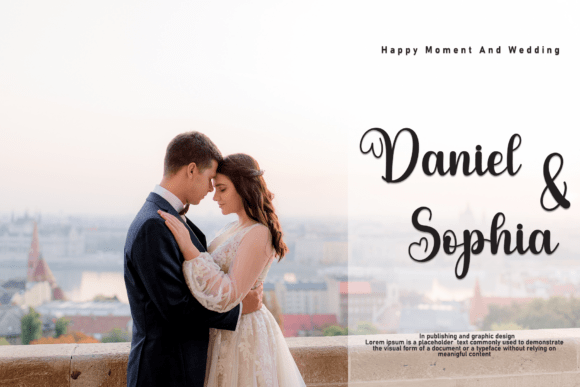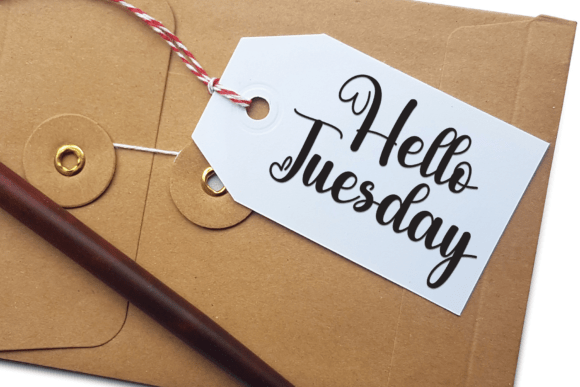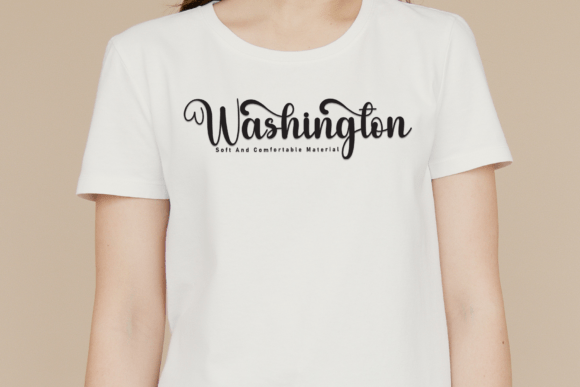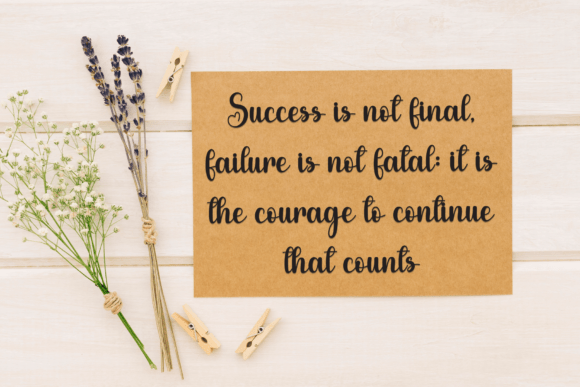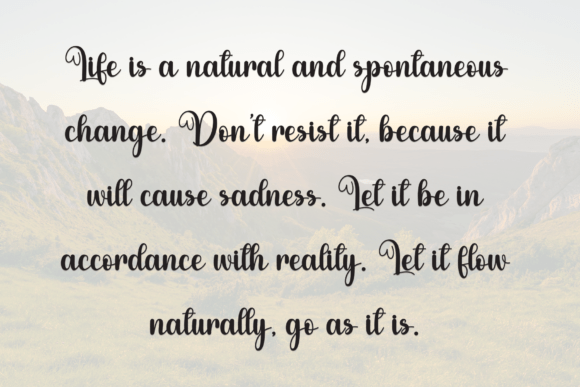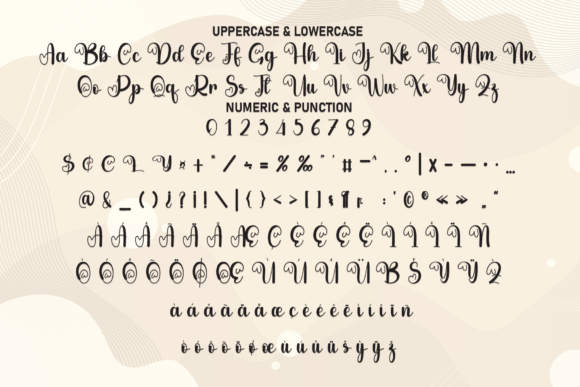
A Personal Touch of Happiness: The Allure of Handwritten Font
Remember the moment you first saw your handwritten name in a beautiful, flowing script? The way it seemed to dance across the page, speaking directly to your heart? That’s the magic of a well-crafted handwritten font.
Whether you’re designing a wedding invitation, a heartfelt greeting card, or any other project that requires a touch of warmth and personality, the Handwritten Font is the perfect choice. This delightful display font is designed to evoke feelings of joy and affection, making it an ideal addition to any design project.
For designers, the Handwritten Font offers limitless creative possibilities, allowing you to add a personal touch to your work that’s sure to delight and engage your audience. With its endearing characteristics and playful vibrancy, this font is a valuable asset in any designer’s toolkit.
Key Features of Handwritten Font
- Unique Characteristics: The Handwritten Font features a natural, cursive script with varying line widths, subtle flourishes, and authentic imperfections, giving it a personal and artistic touch.
Handwritten Font Review
Overall, I found the Handwritten Font to be a charming addition to any design project. ✨ It’s perfect for creating a warm and inviting atmosphere, making it ideal for use in branding, signage, or marketing materials.
- ✨ Unique Character: The Handwritten Font’s most striking feature is its unique character, which makes it instantly recognizable and memorable.
- ✨ Versatility: The font is highly versatile and can be used in a variety of contexts, from formal to informal.
- ✨ Legibility: Despite its handwritten feel, the font is surprisingly legible, making it easy to read even at small font sizes.
- ⚠️ Limited Expressiveness: While the Handwritten Font is great for conveying a sense of warmth and personality, it may not be the best choice for projects that require a high level of expressiveness or sophistication.
- ⚠️ Limited Character Set: The font’s character set may be limited, which could make it difficult to use in projects that require a wide range of characters or special symbols.
Overall, I think the Handwritten Font is a great choice for designers who want to add a touch of personality to their projects. However, it’s not a one-size-fits-all solution, and designers should carefully consider the project’s requirements before choosing this font.
Some common use cases for handwritten font include:
Creating a personal or handwritten-style logo
Designing invitations or greeting cards
Adding a touch of personality to social media graphics or blog posts
Experimenting with different font styles and combinations to achieve a unique look
Using handwritten font in conjunction with other design elements, such as images or textures, to create a visually appealing design